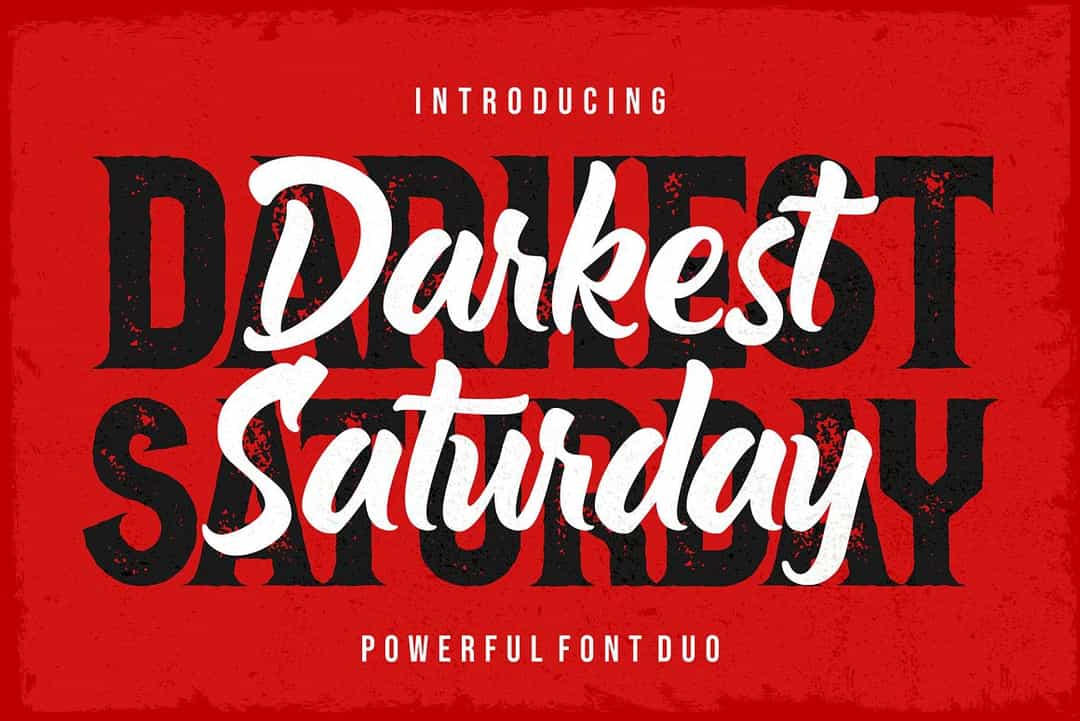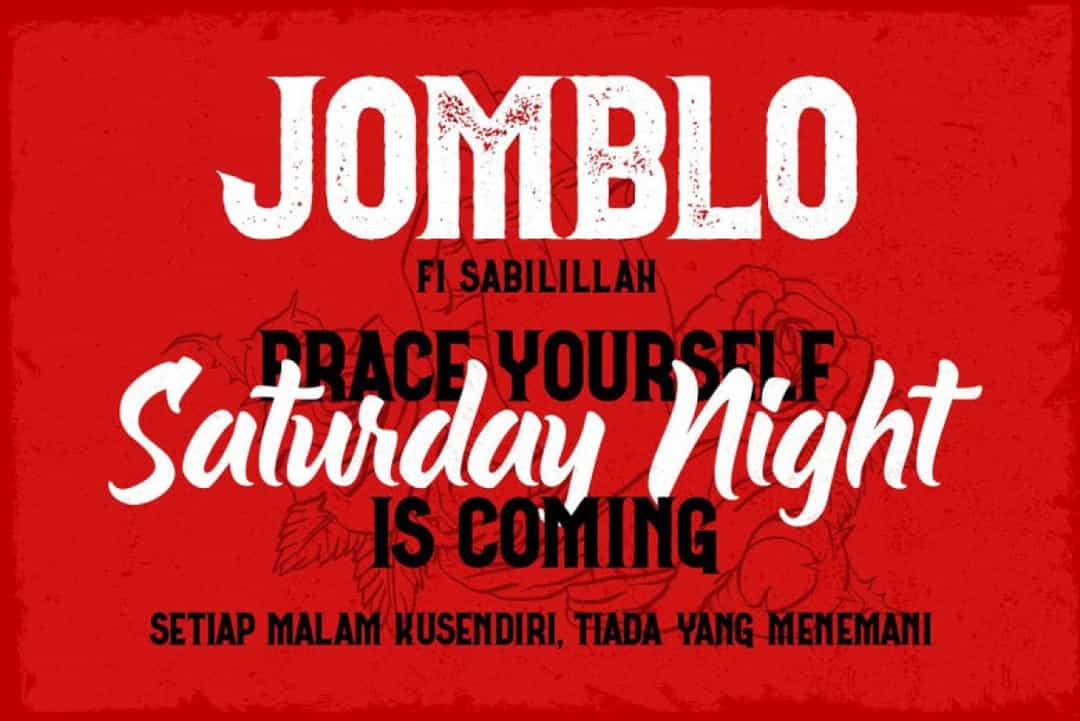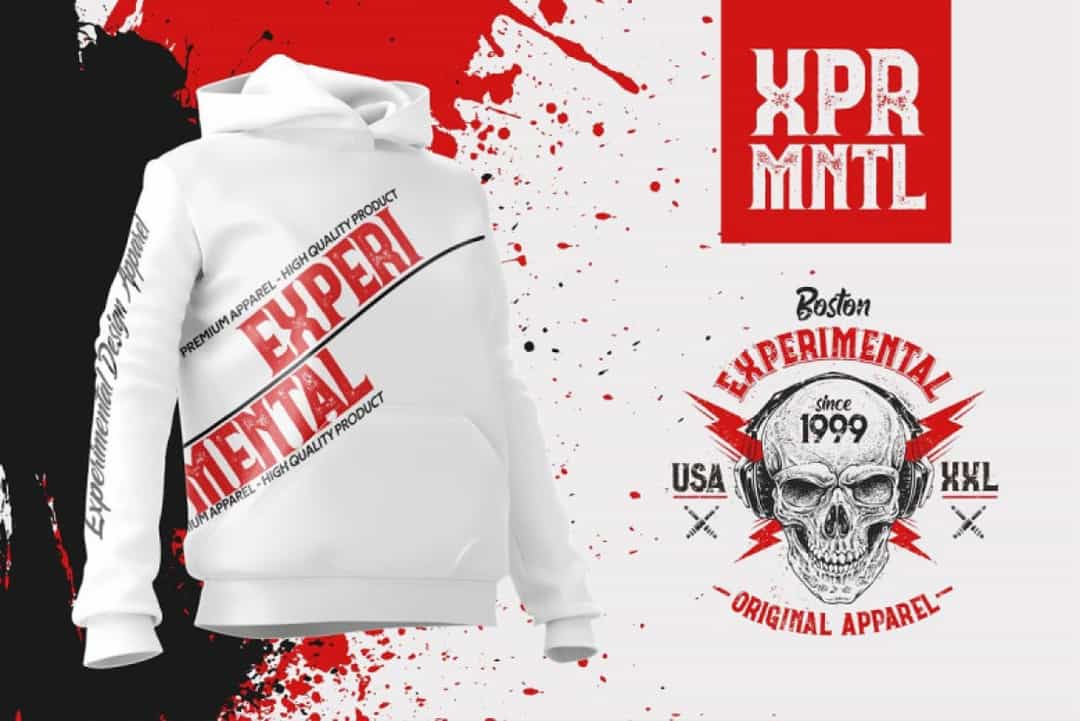
Darkest Saturday Font
“Darkest Saturday Font Duo” is our latest offering and is proud to present this striking font crafted with vintage design and rough edges for those feeling lonely in life. Four different versions allow users to mix and match designs for stunning works of art!